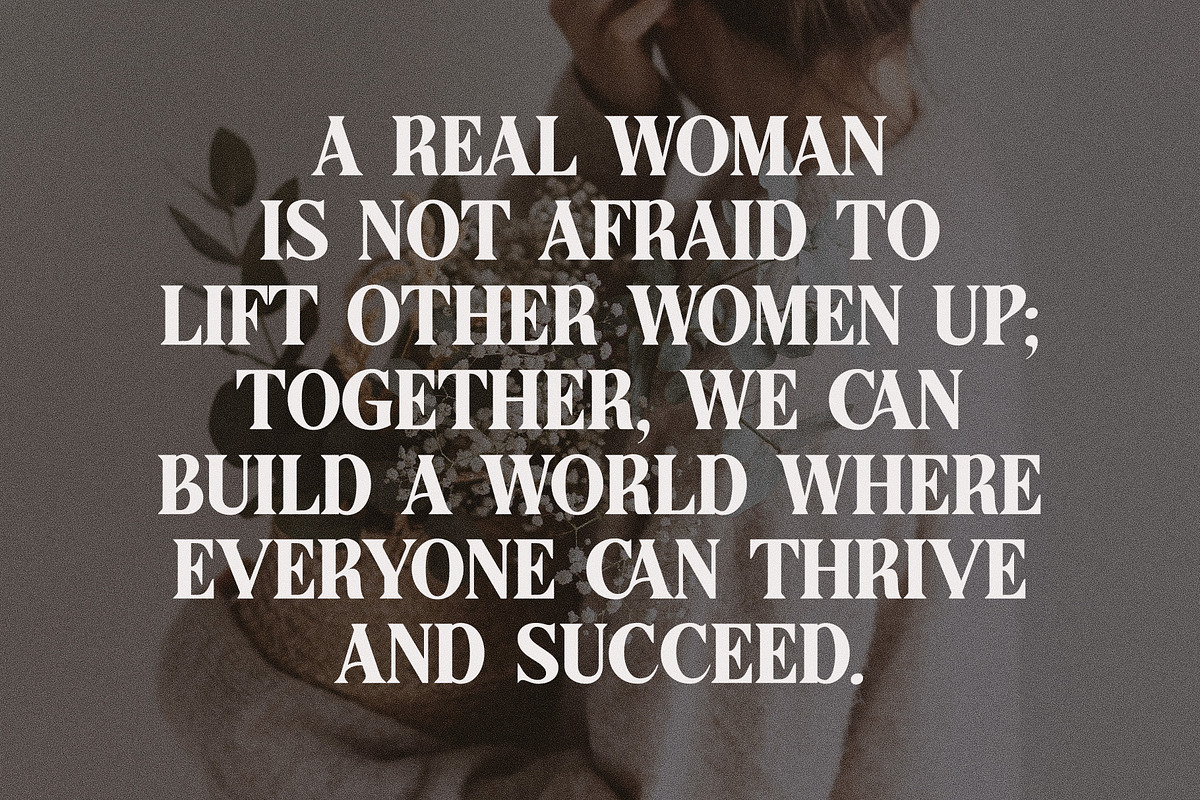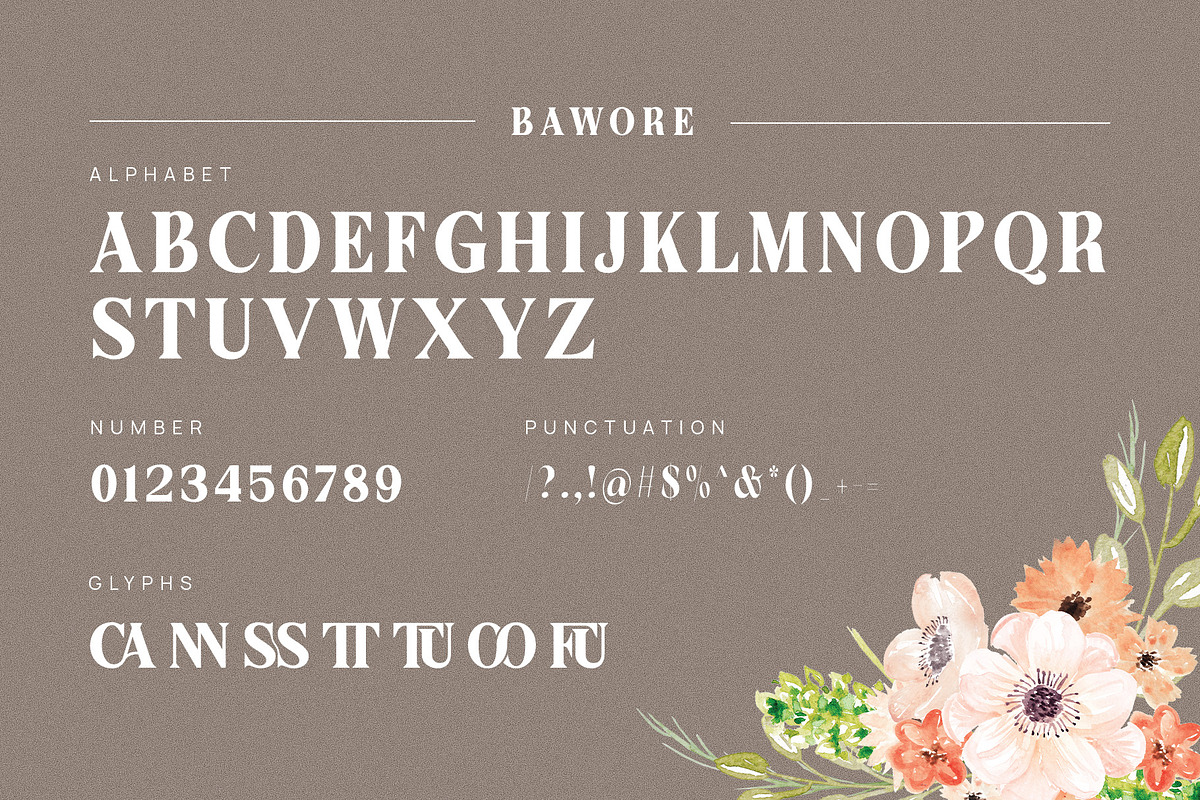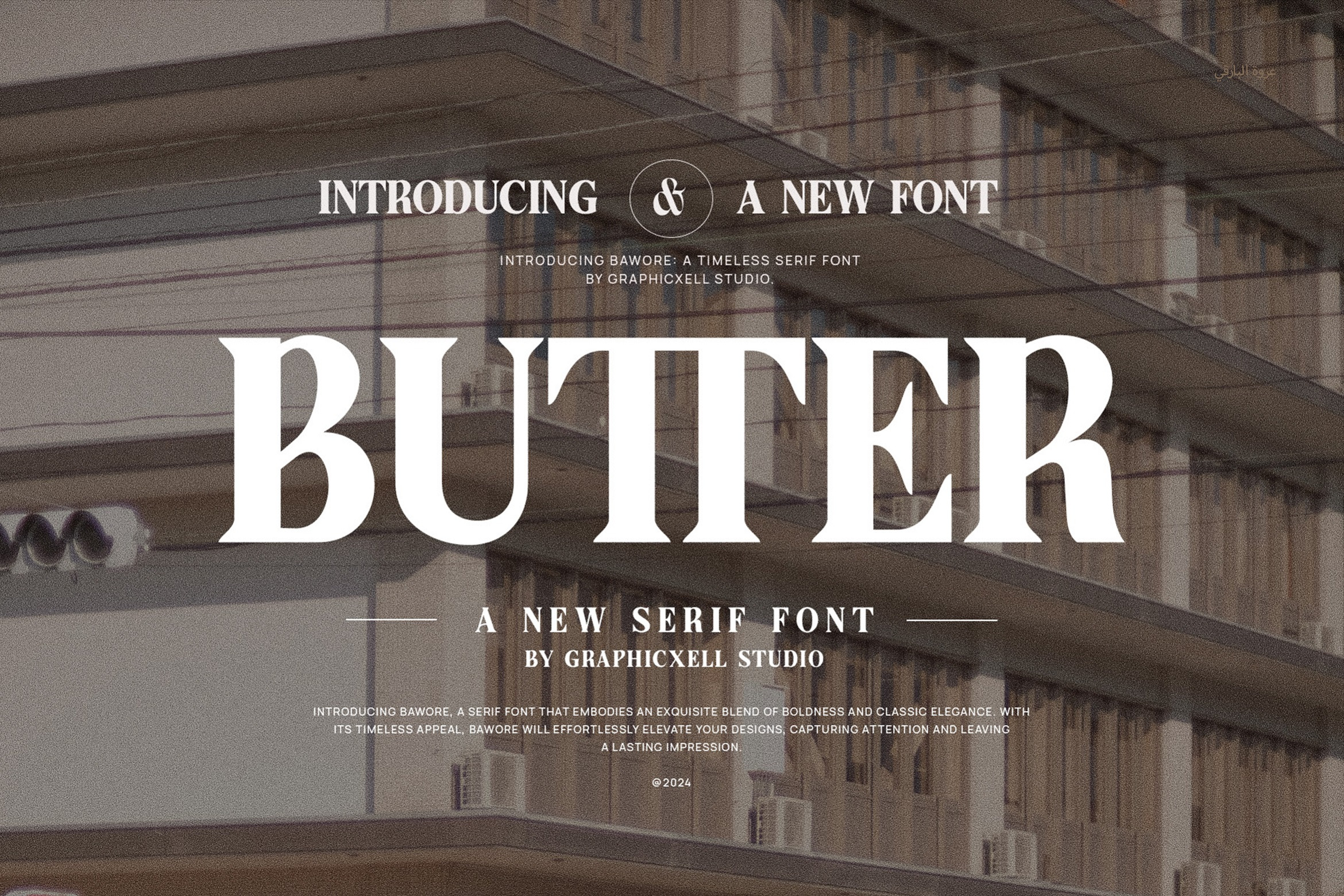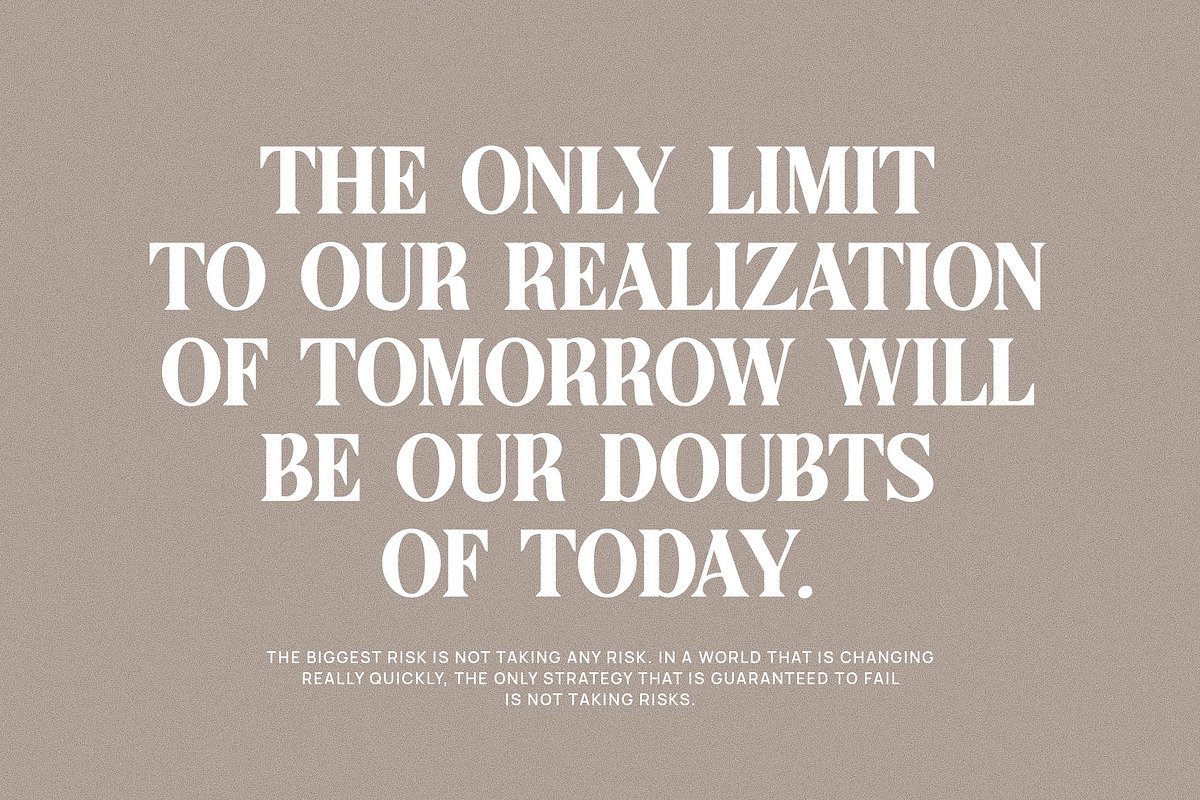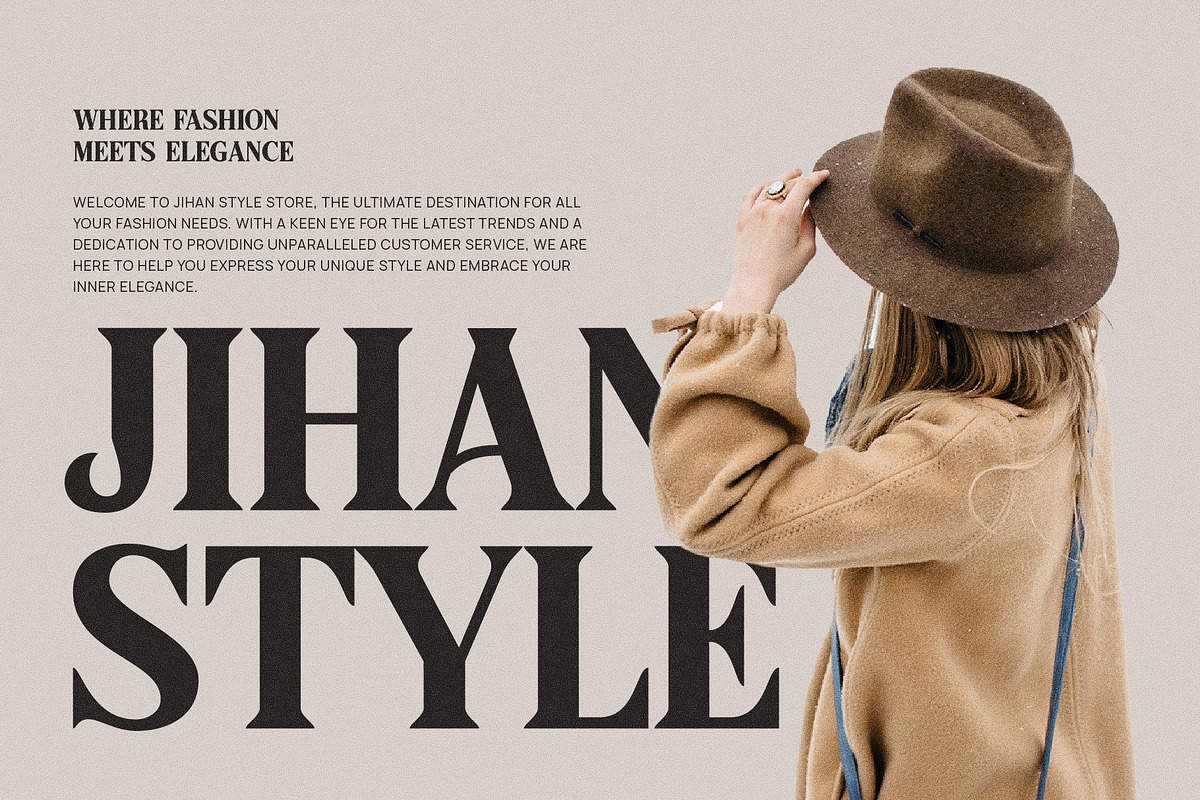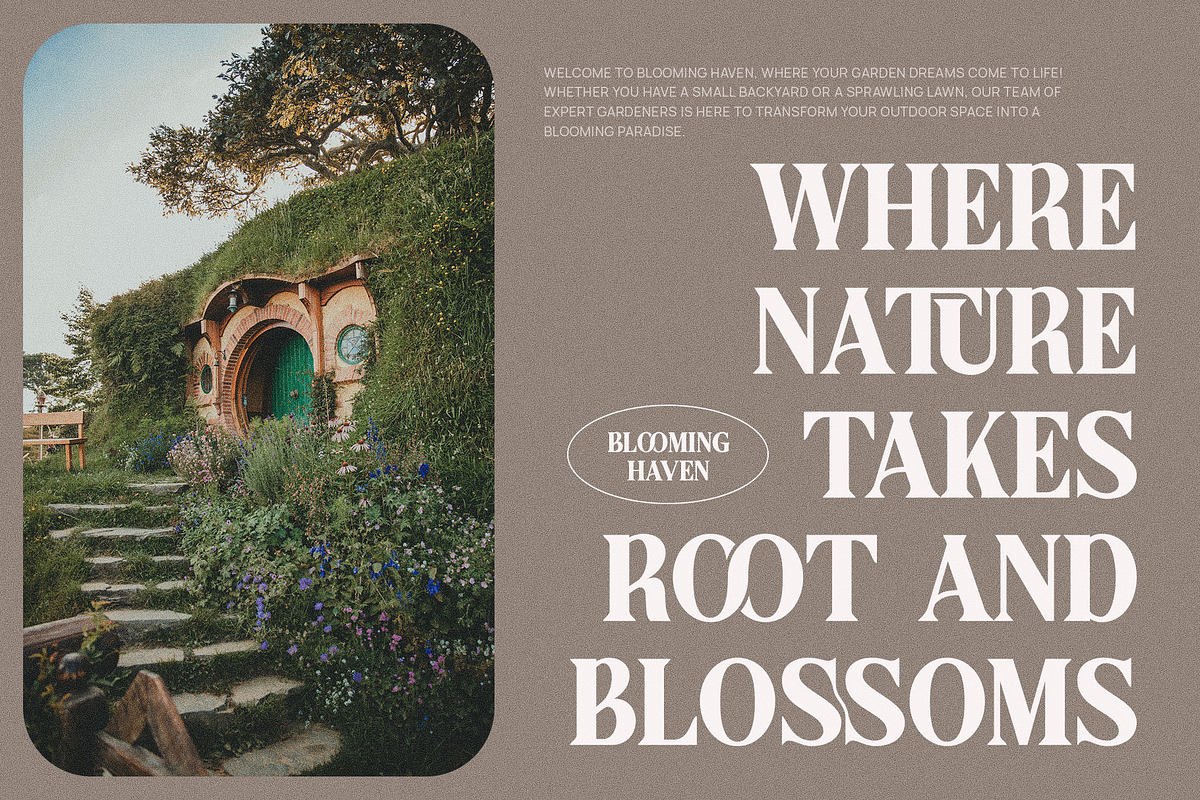
Butter Elegant Serif Font Typeface
Butter Elegant Serif Font Typeface is an elegant font that offers a timeless appeal. As you can see, the difference between the thick and thin sides is not too big. One of the most noticeable features of this font is the boldness that creates an exquisite look. Besides that, this font represents a formal style. A classic style also appears on this font. But the most interesting thing is the bracket that comes with a beautiful curve. Moreover, this font also emphasizes its counterstrokes. So, the Butter Elegant Serif Font Typeface is best for those who work in graphic designing projects. Whether you want to make logos, invitations, watermarks, or other projects, this typeface will be suitable for your needs. Now, if you want to elevate your design effortlessly, make sure that you try this font. Using the Butter Elegant Serif Font Typeface will capture a great attention from the audience.